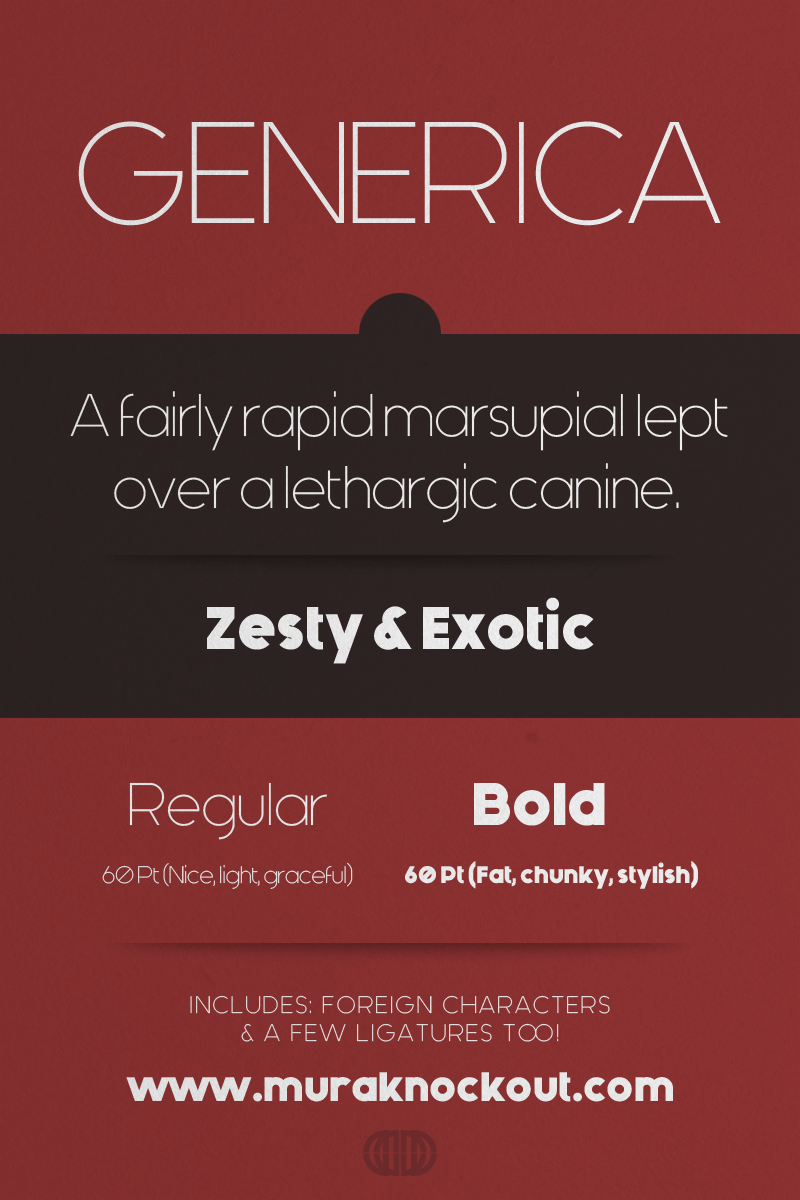
Like us on Facebook and stay updated! http://facebook.com/muraknockout Check out sweet gear that we offer on Society6! http://society6.com/mkmediadesign ----------------------- Generica is our newest font with 2 FREE weights. Generica exists to help you cross projects off of your daily list and move on. With one super light weight and one super chunky weight (with foreign characters and even some ligatures) you have all of your bases covered. Both weights are available to use for personal or commercial projects absolutely FREE! Check out samples and more on our website: http://muraknockout.com/generica-font-family/ ----------------------- Check out all of our fonts, free and premium, at: http://muraknockout.com ----------------------- Please DO NOT download this font and redistribute it on another website! For a full licensing agreement please check out: http://muraknockout.com/licensing |